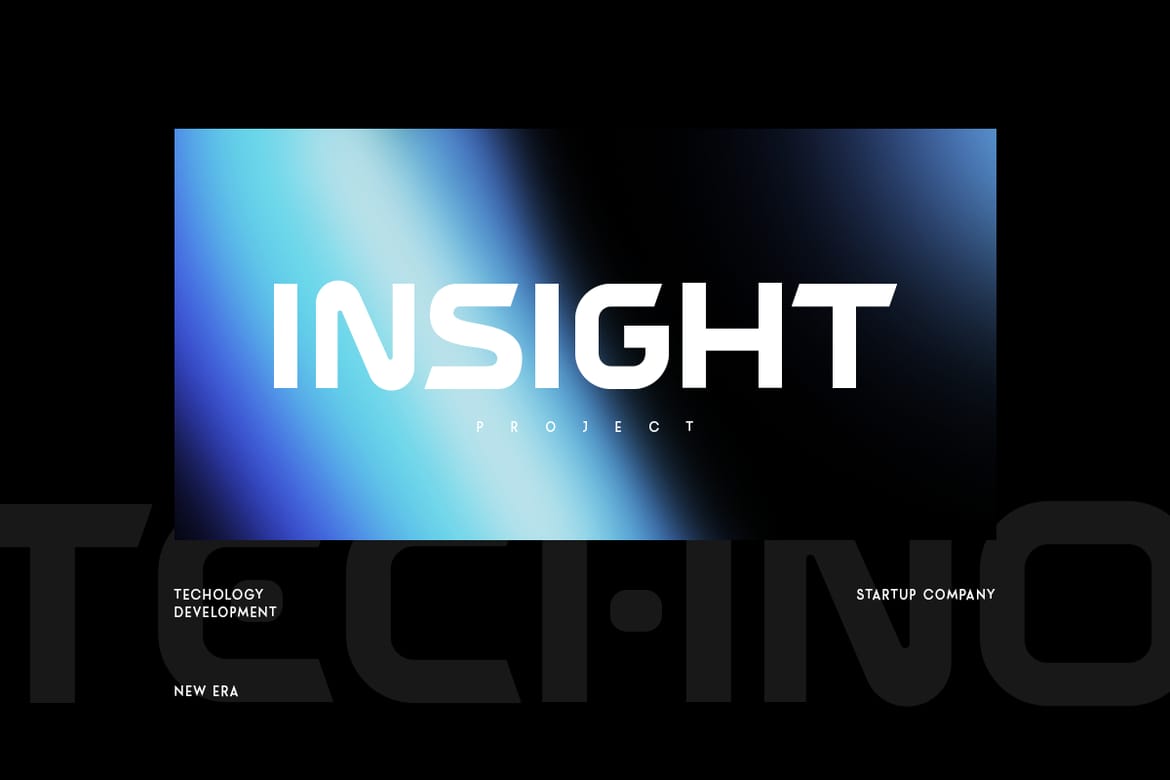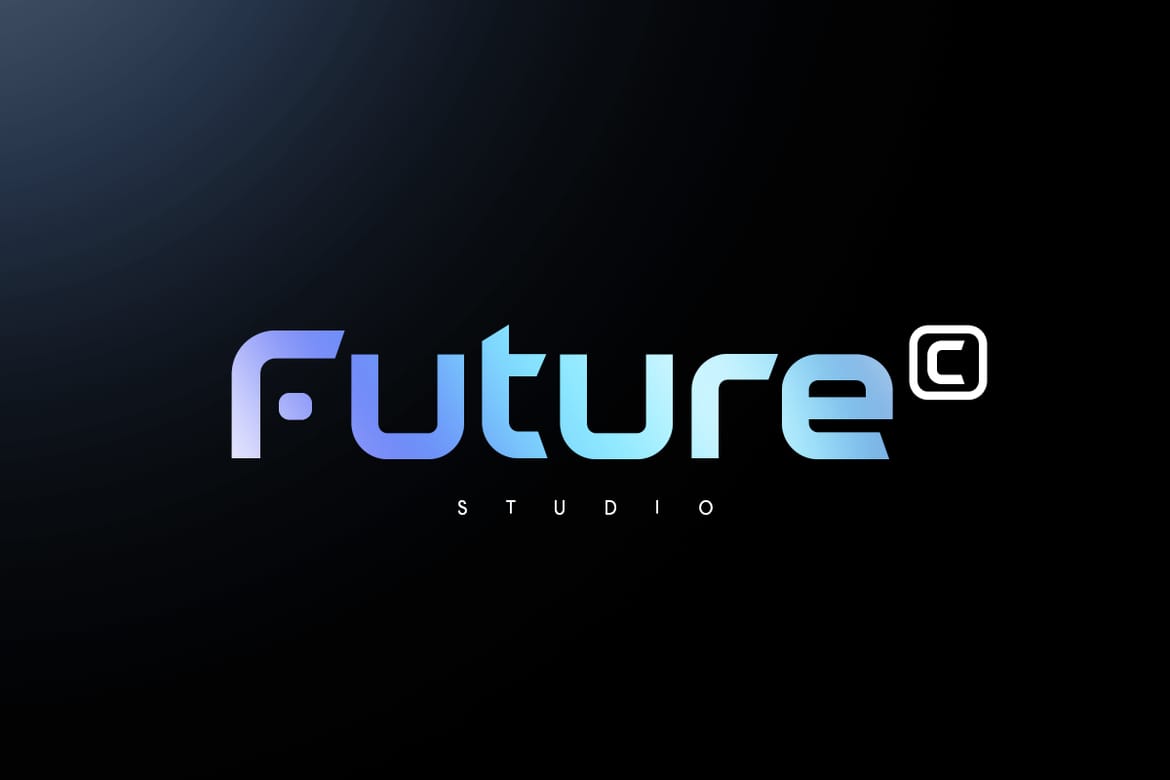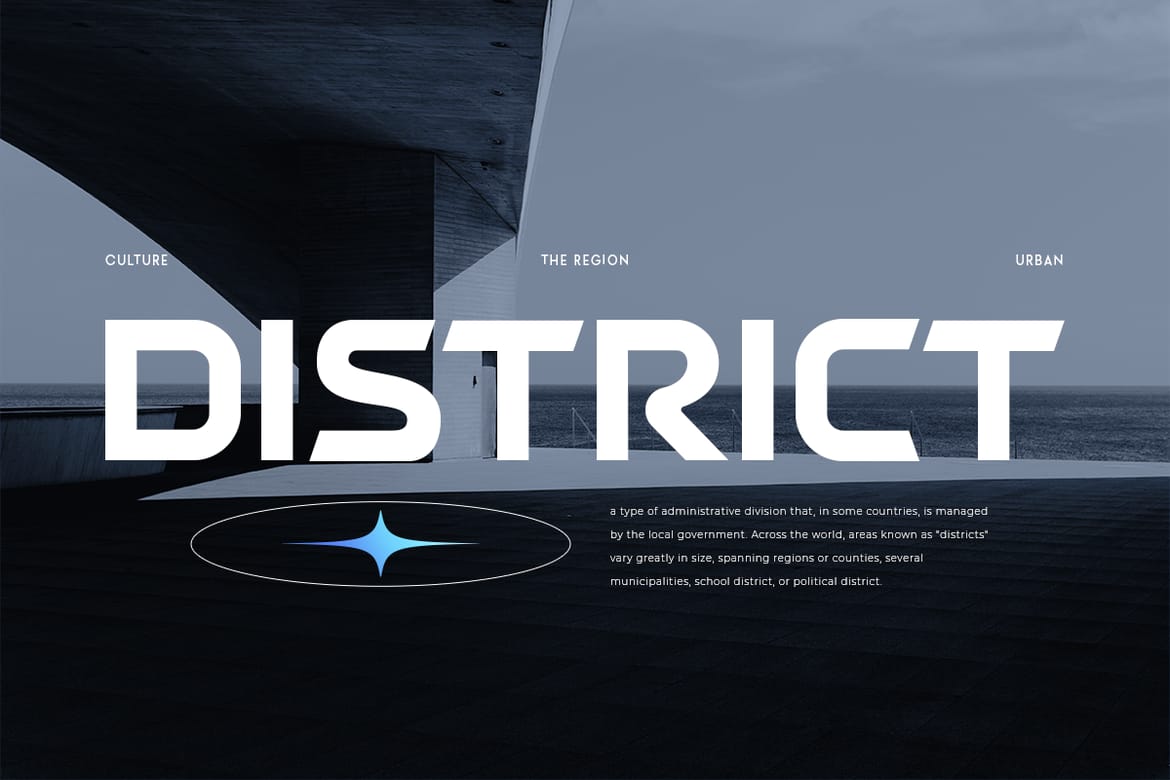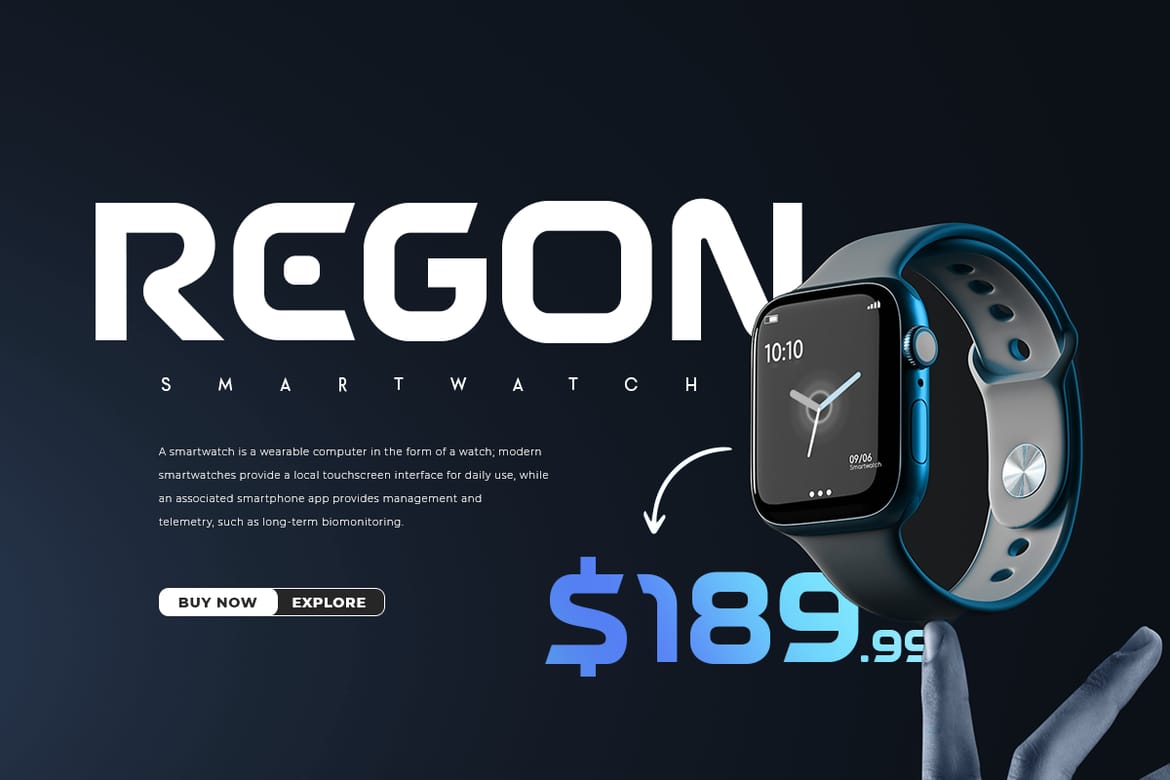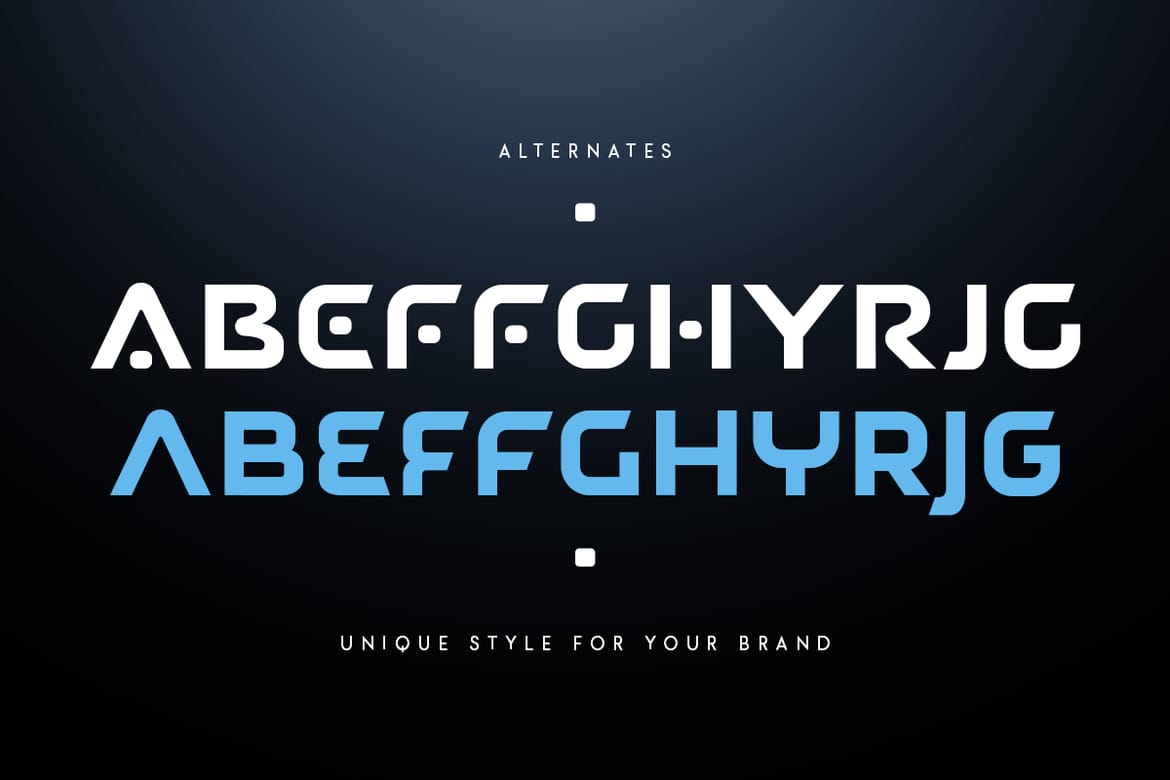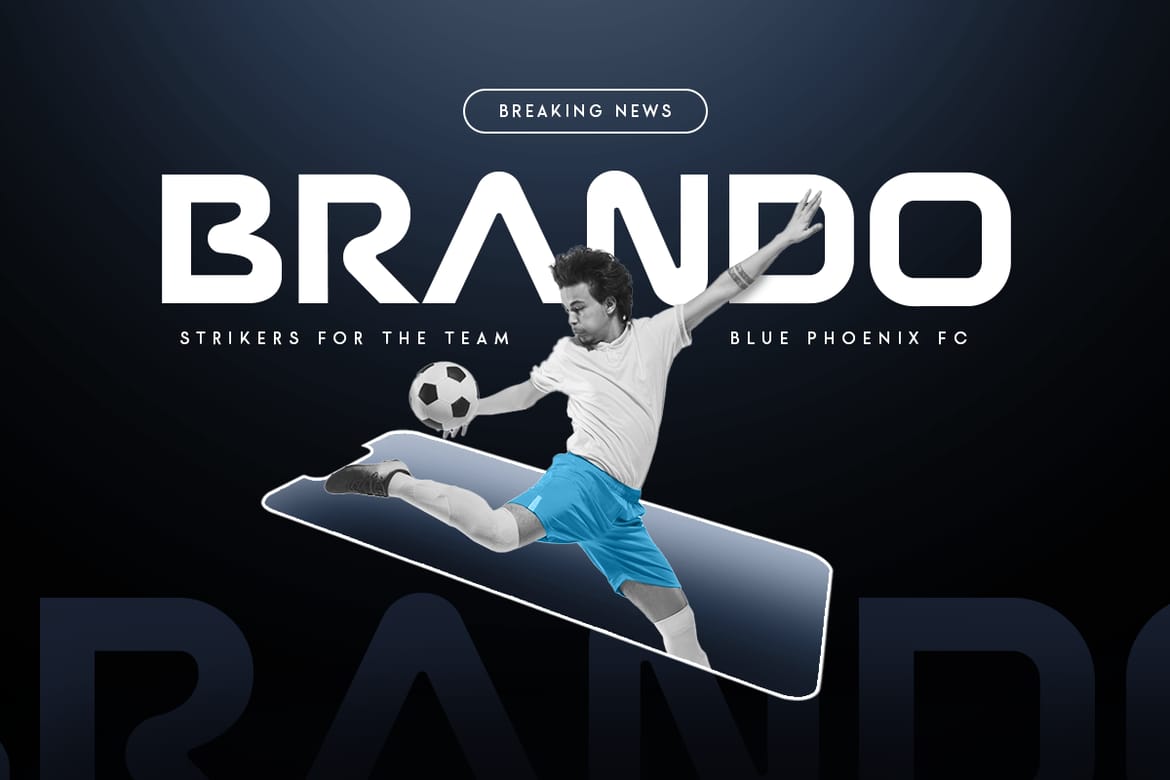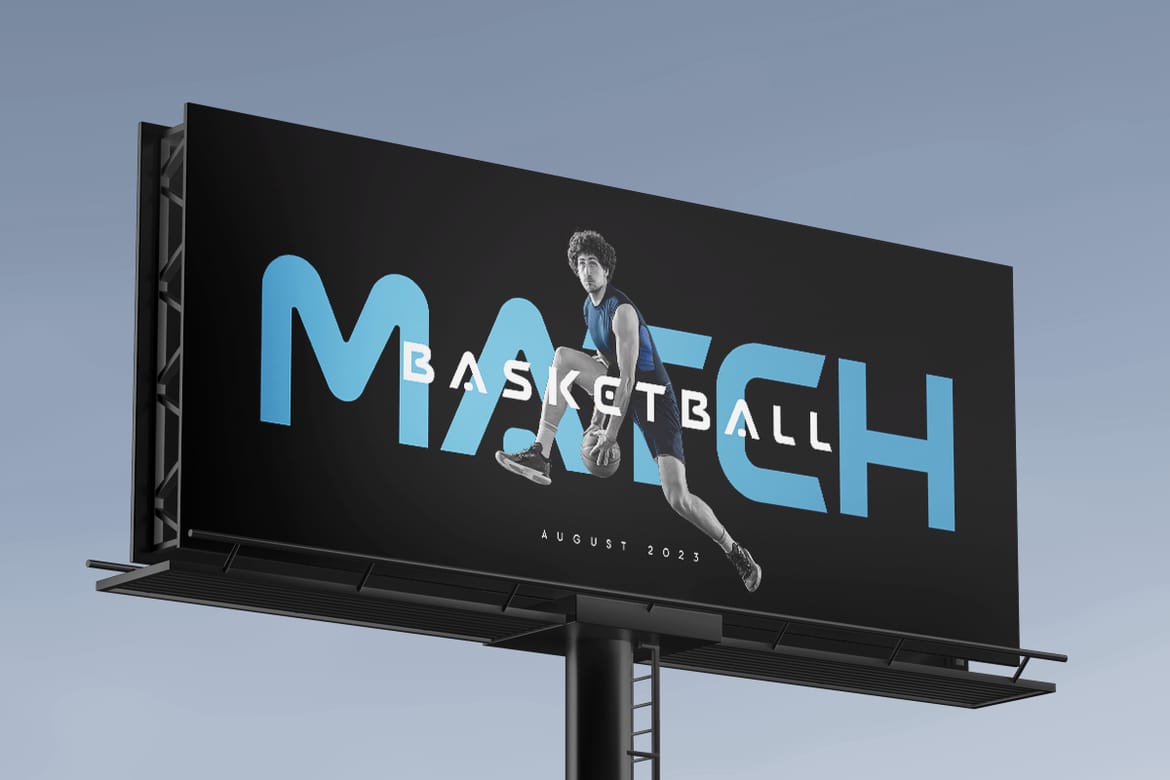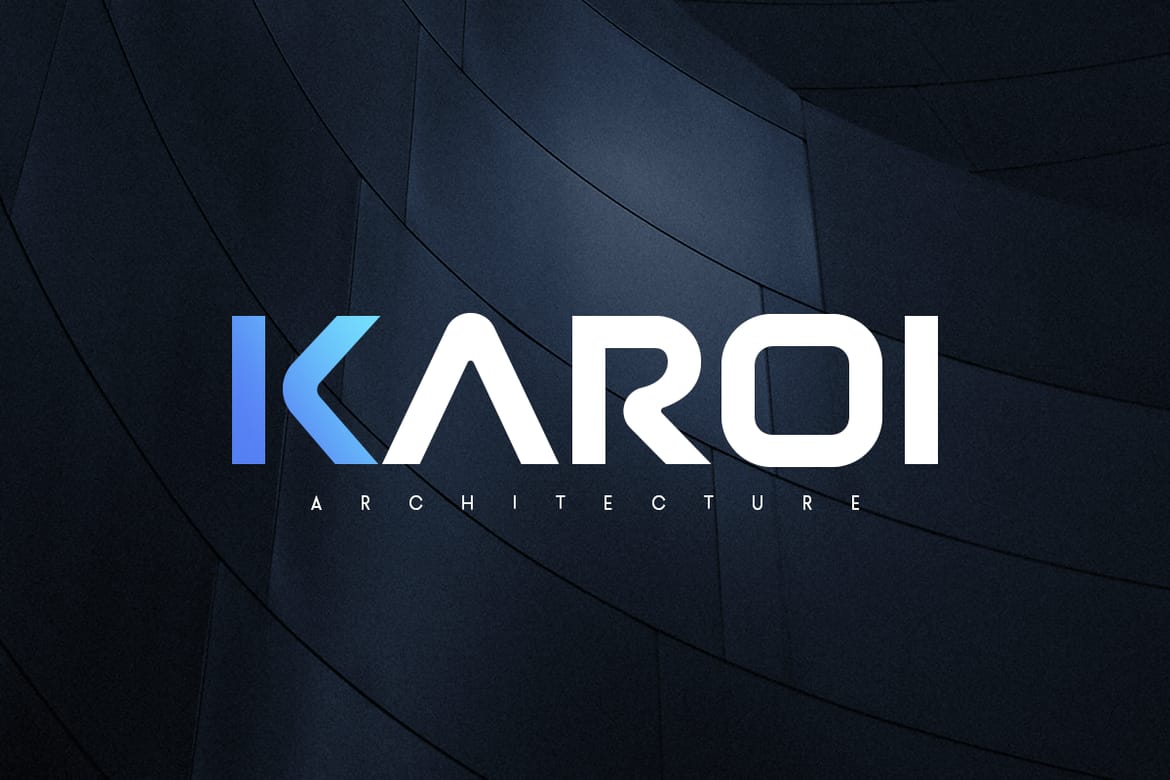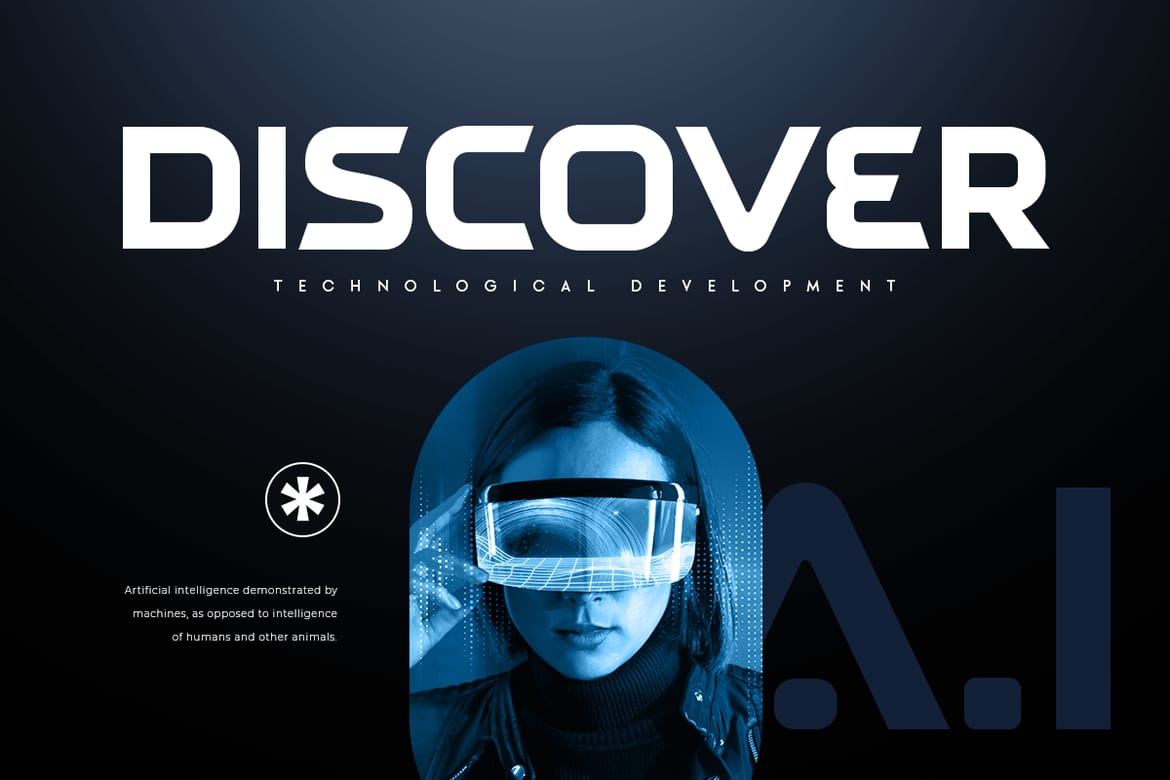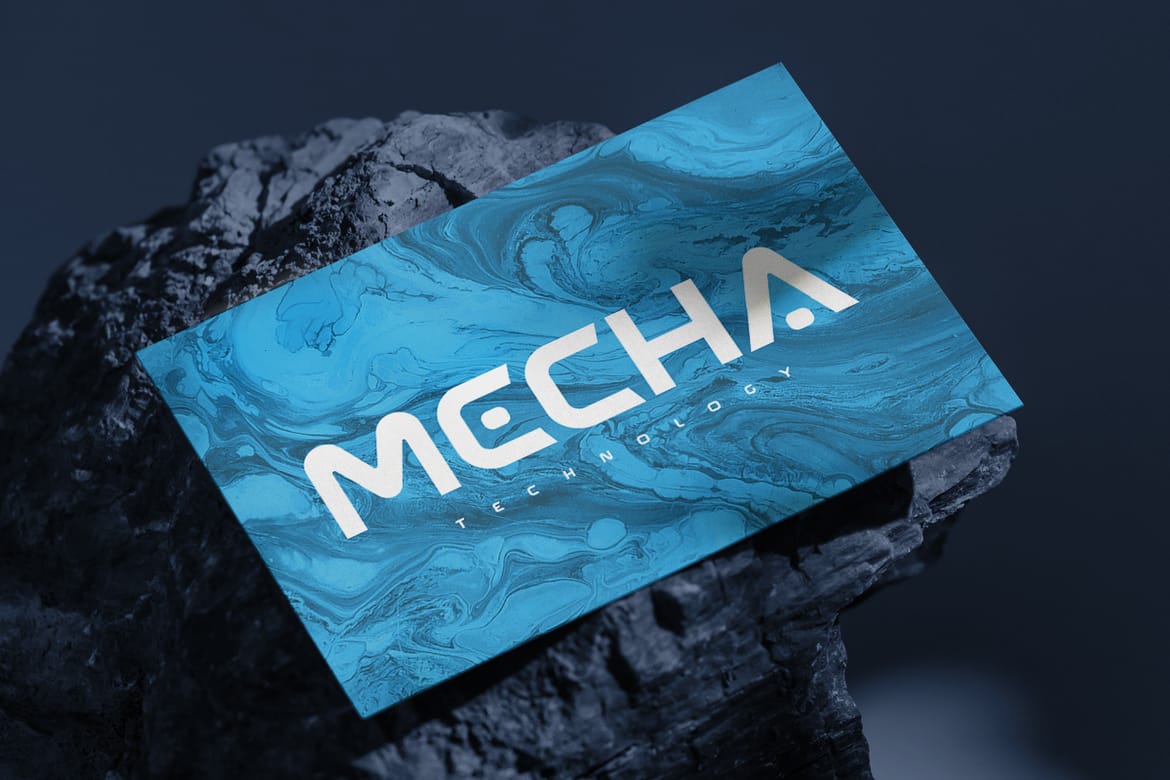
AUTOMATA is a Futuristic Modern Sport font that created special for Sci-fi, Modern and more stand out typography needs, with extra alternative styles that make your design more Futuristic. It's so perfect to add your style and headline overview for sport, technology, actions, and Sci-fi theme. And specially for this font, we crafted for bold style and modern feels so enjoy to create any project that will show your main idea out.
Futuristic characters prepared to get creative alternatives in Technology theme
Ready with Uppercase and Lowercase characters
- Futuristic sci-fi sport typeface
- Uppercase and lowercase characters